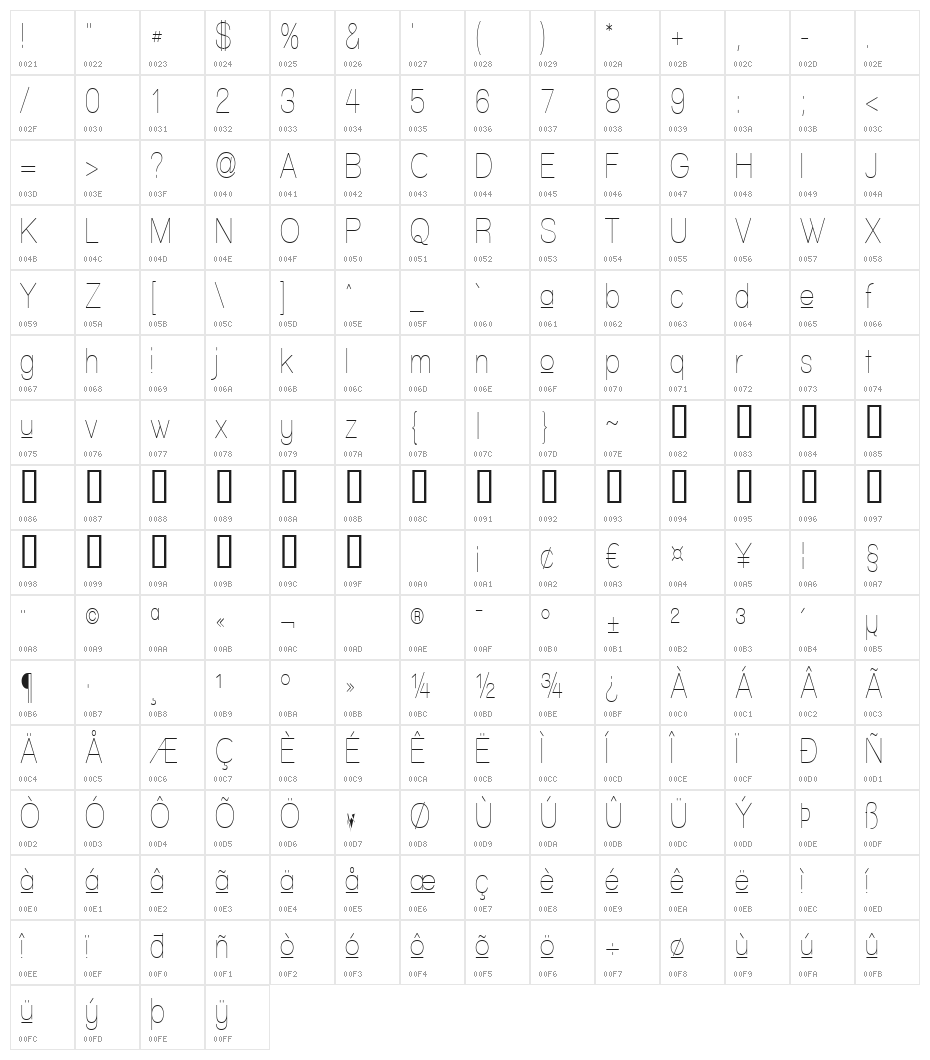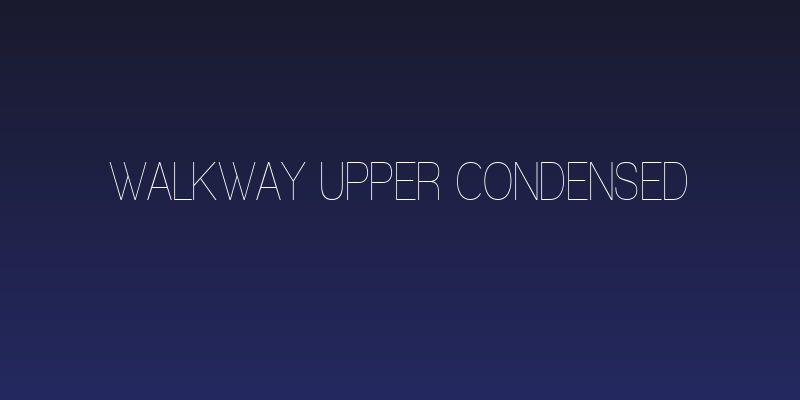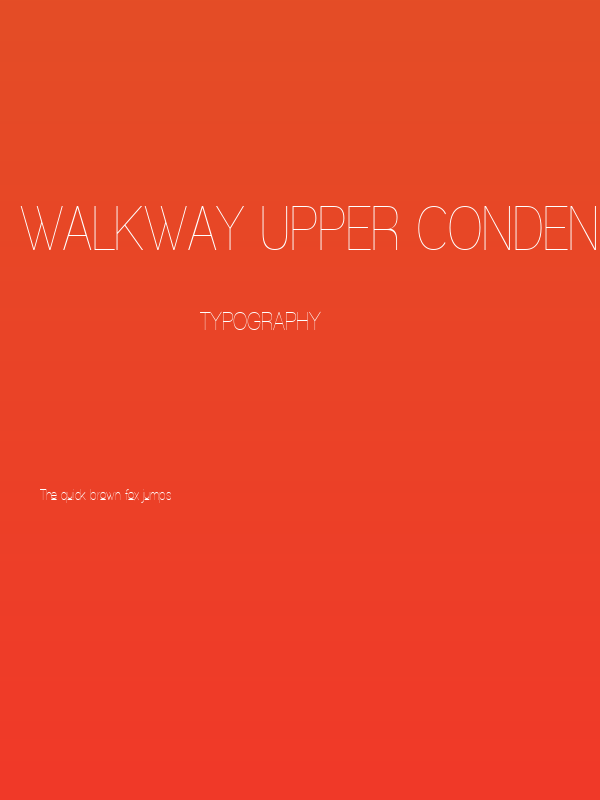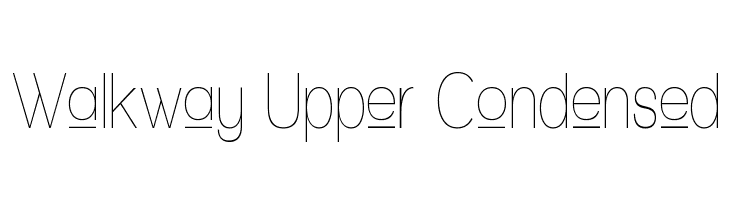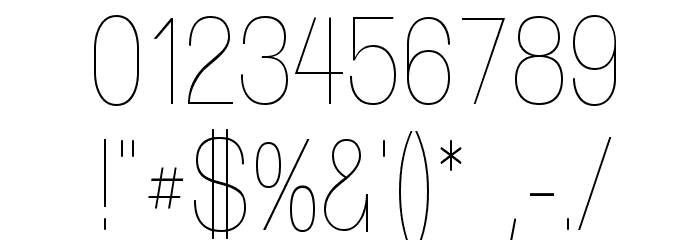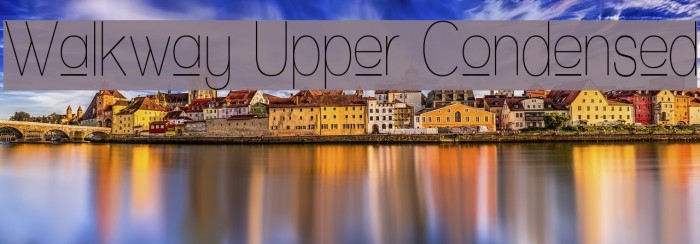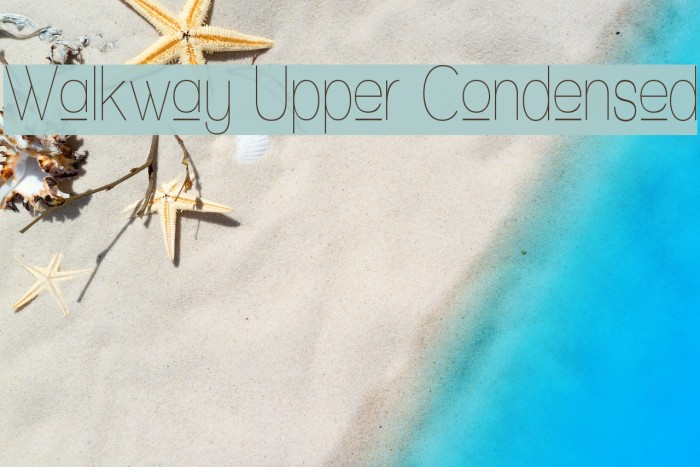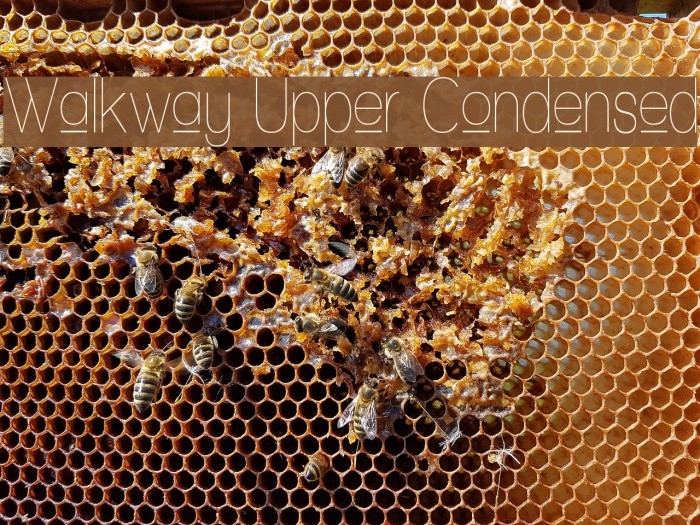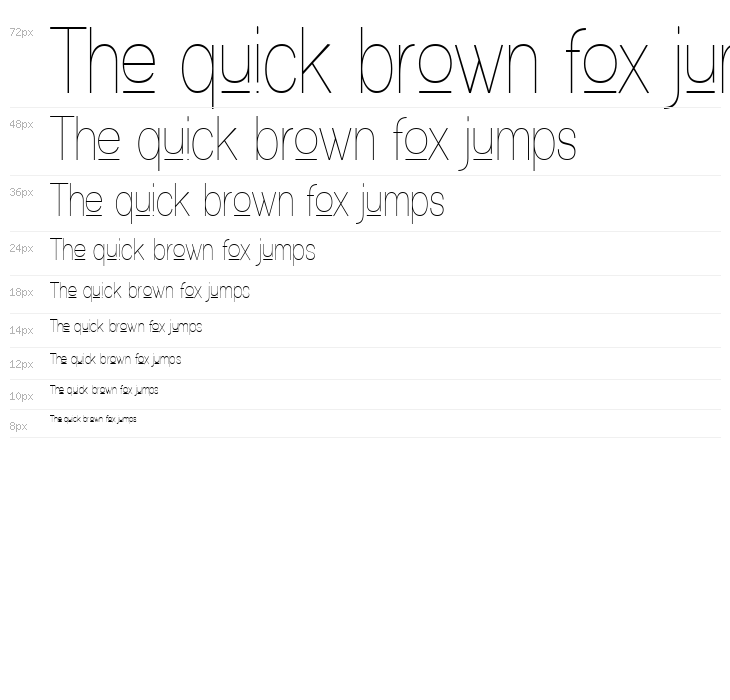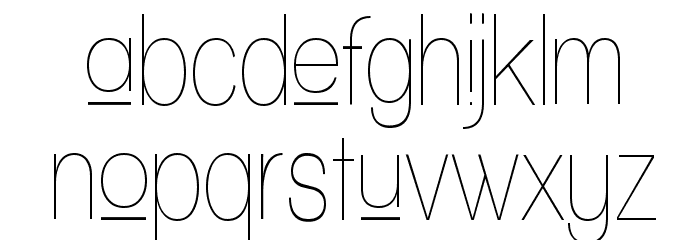
Walkway Upper Condensed Font
Walkway Upper Condensed Description
This font exhibits a sleek, modern design with a condensed structure, characterized by thin, uniform strokes that create a minimalist aesthetic. The uppercase and lowercase letters maintain a consistent height, contributing to a clean and orderly appearance. The numerals and special characters are designed with the same thin lines, ensuring a cohesive look across all characters. The font's simplicity and elegance make it suitable for contemporary design projects, where clarity and style are paramount. Its condensed form allows for efficient use of space, making it ideal for headlines or titles where space is limited.
| Proposed Projects | Ideal for modern branding, editorial design, minimalist posters, and digital interfaces. |